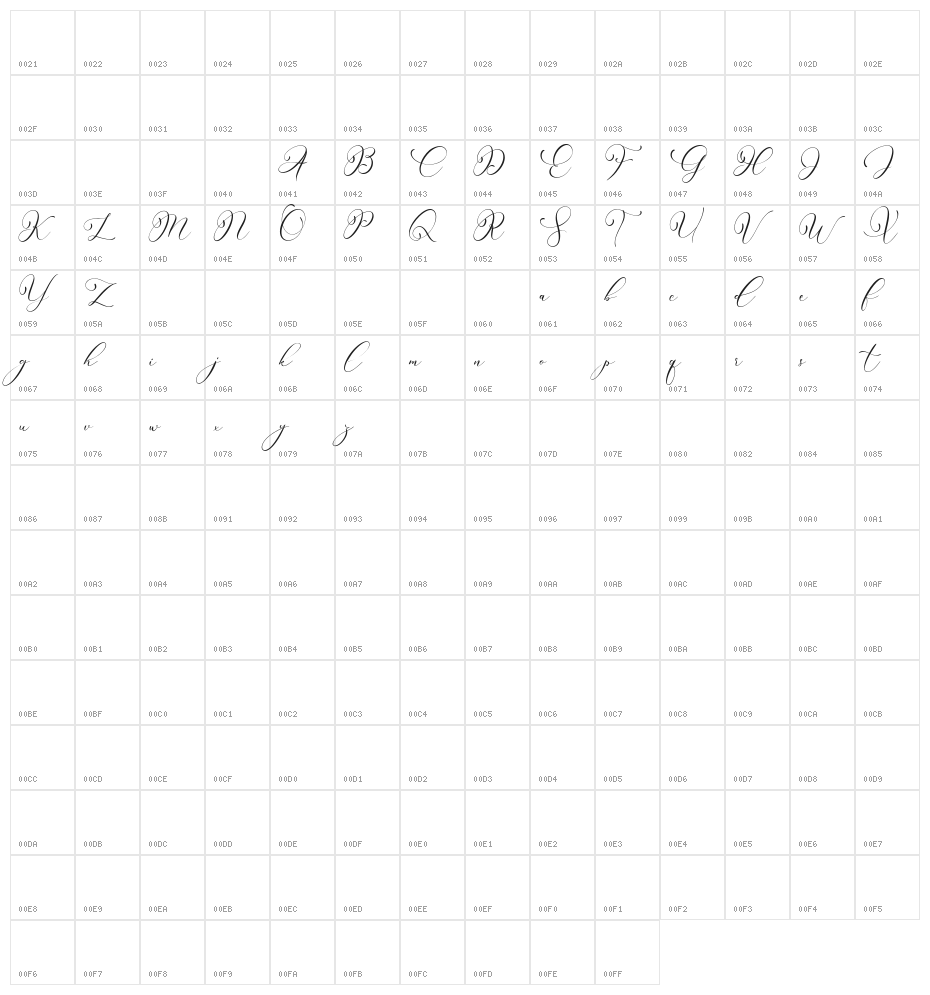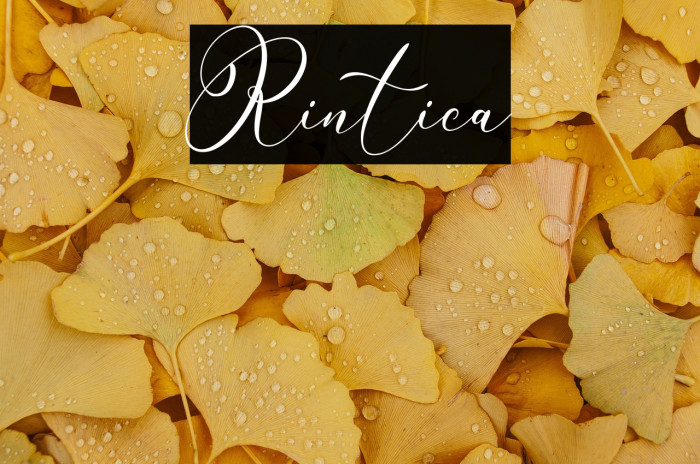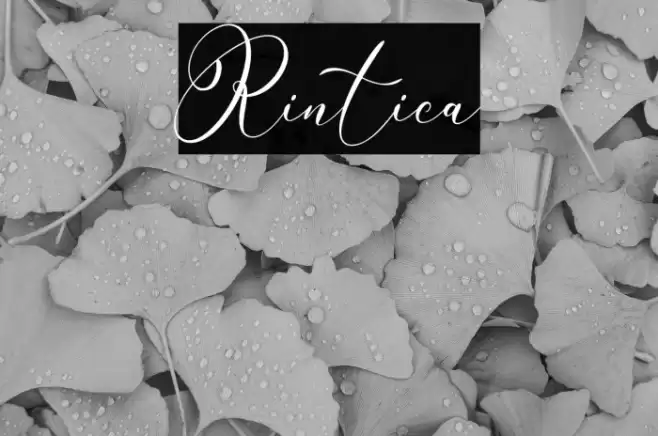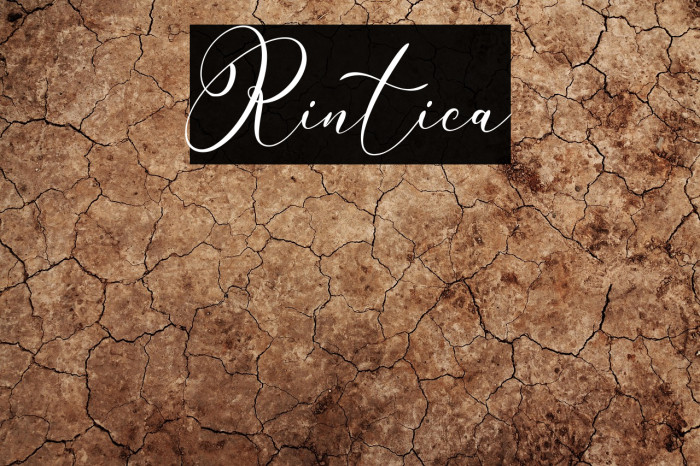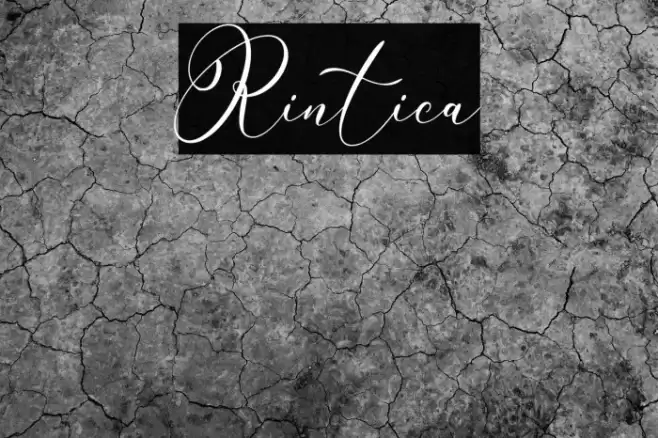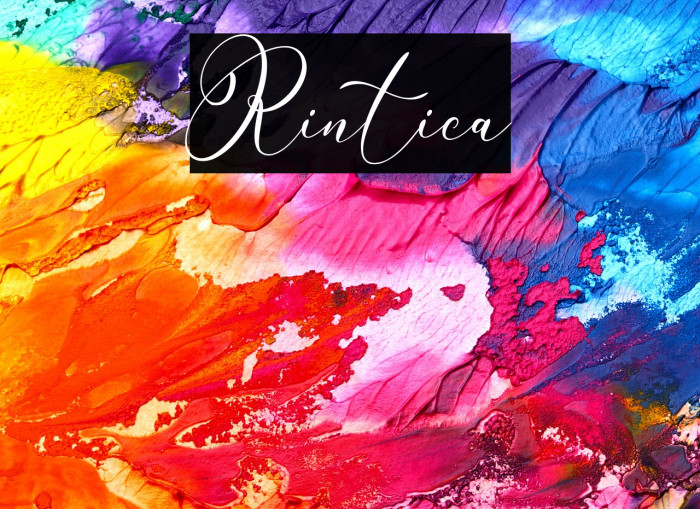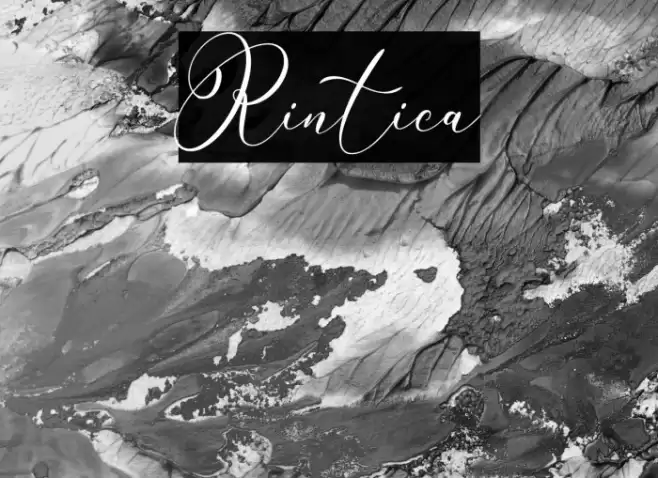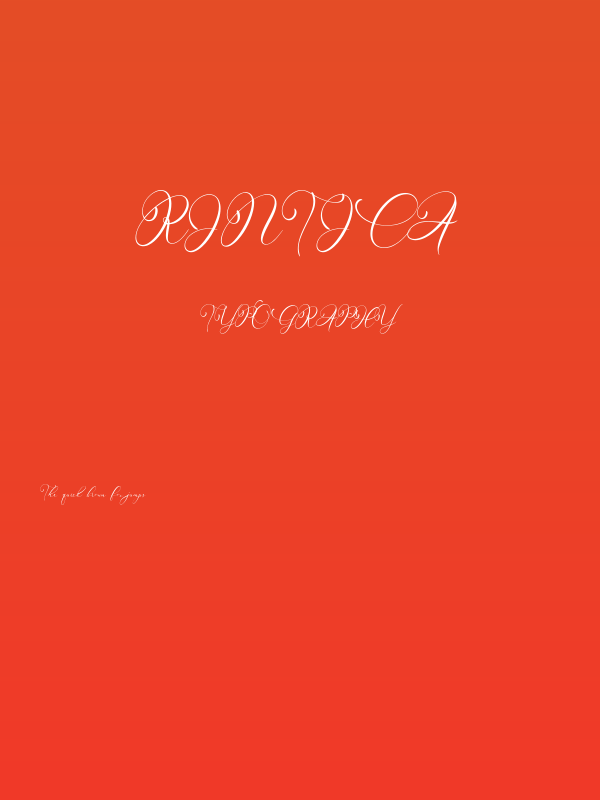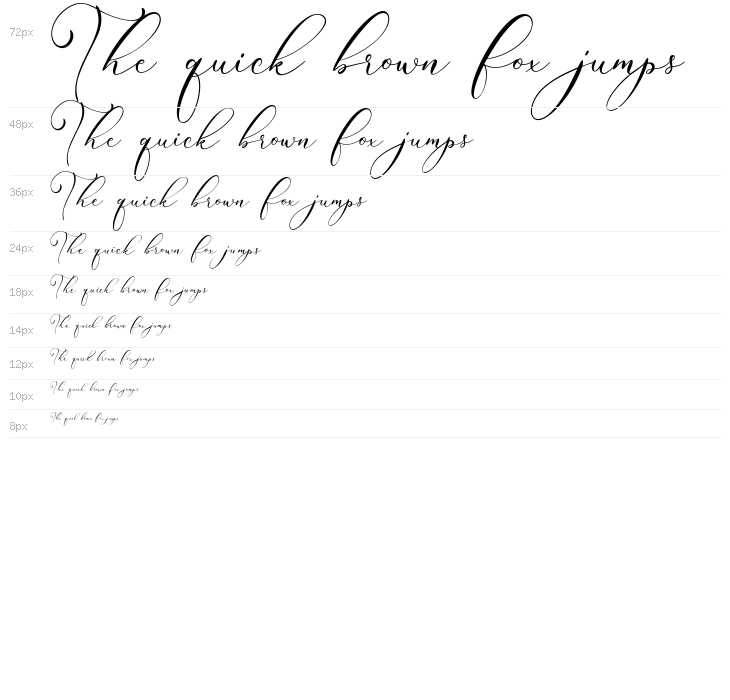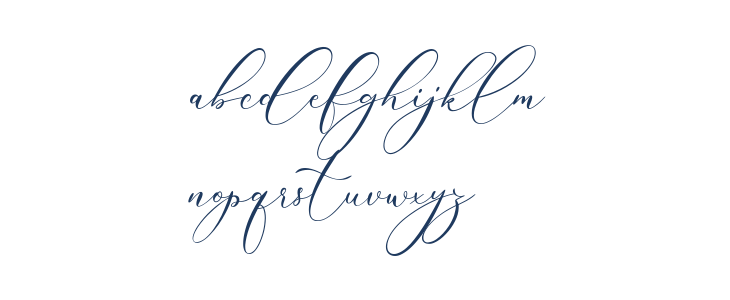
Rintica Font
Rintica Description
This elegant script font features flowing, interconnected letters with a refined and sophisticated appearance. The uppercase characters are ornate, with sweeping curves and loops that add a touch of luxury and grace. The lowercase letters maintain a consistent fluidity, enhancing readability while preserving the decorative style. The font's overall design is reminiscent of classic calligraphy, making it suitable for formal and elegant applications. The strokes vary in thickness, providing a medium contrast that adds depth and interest to the text. This font is ideal for projects that require a touch of elegance and sophistication.